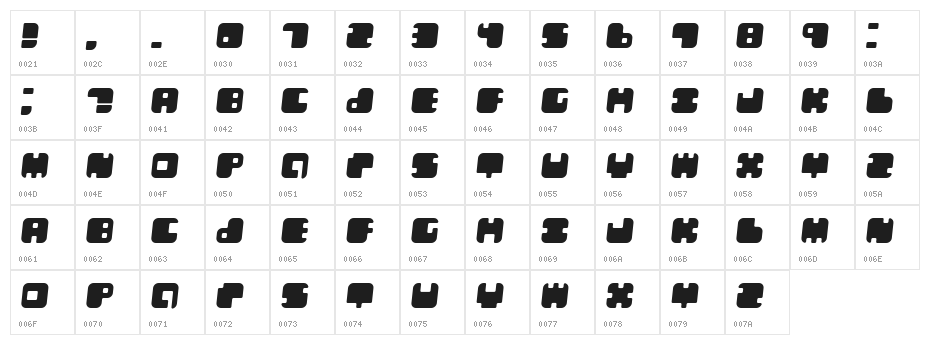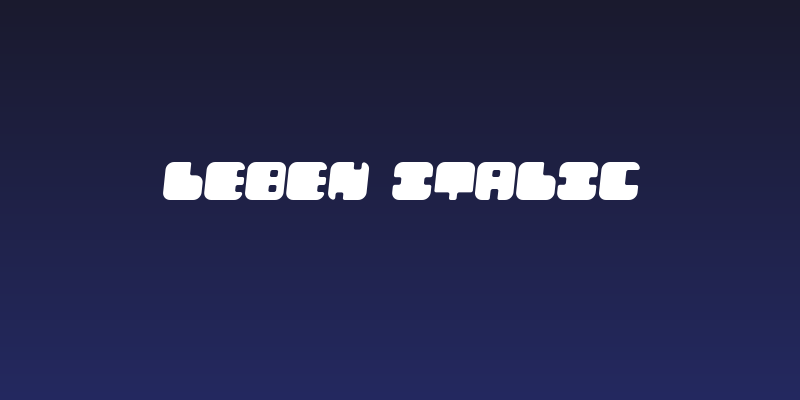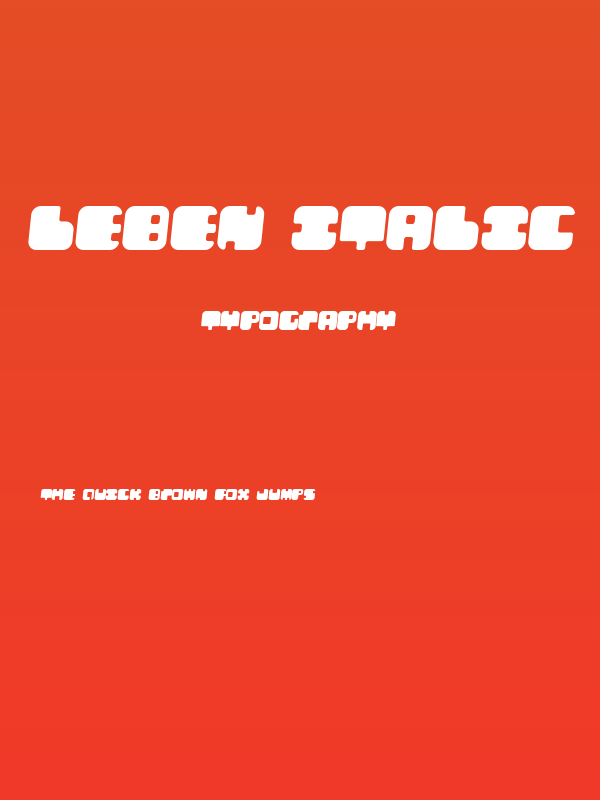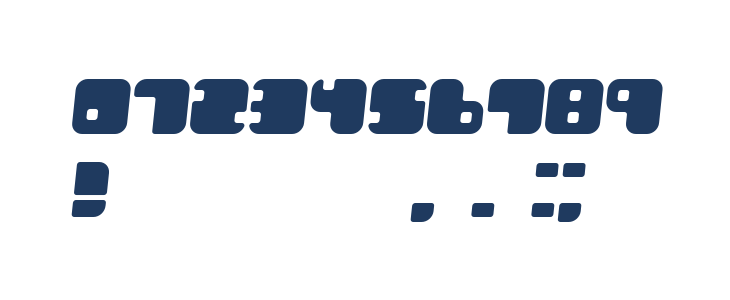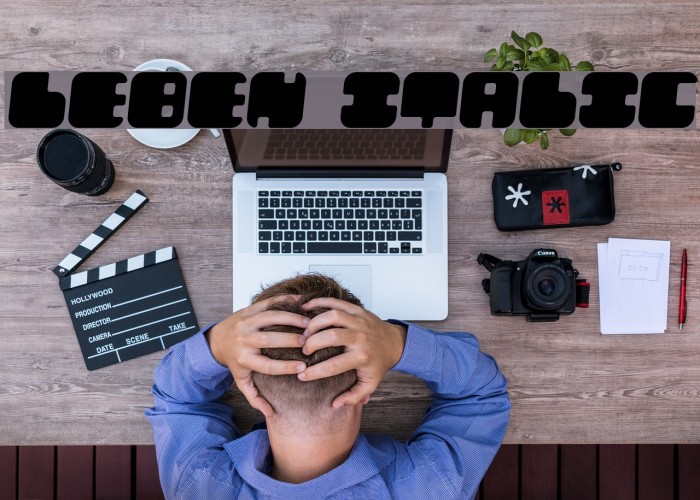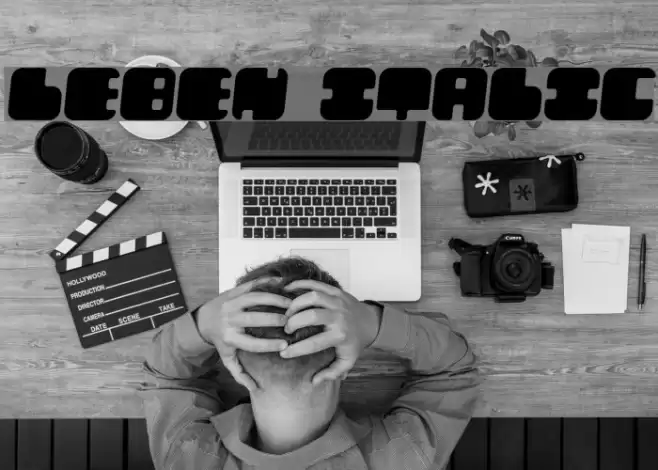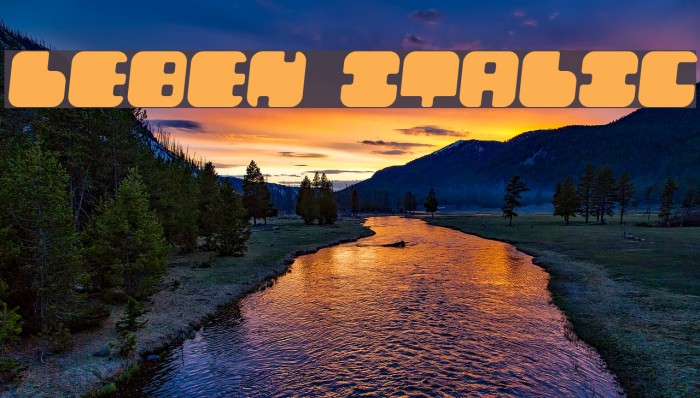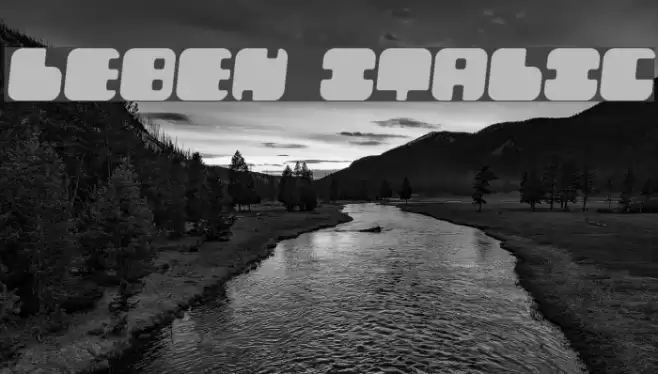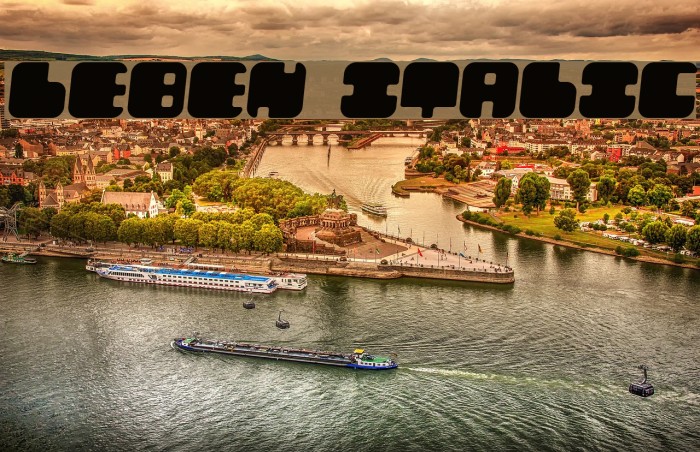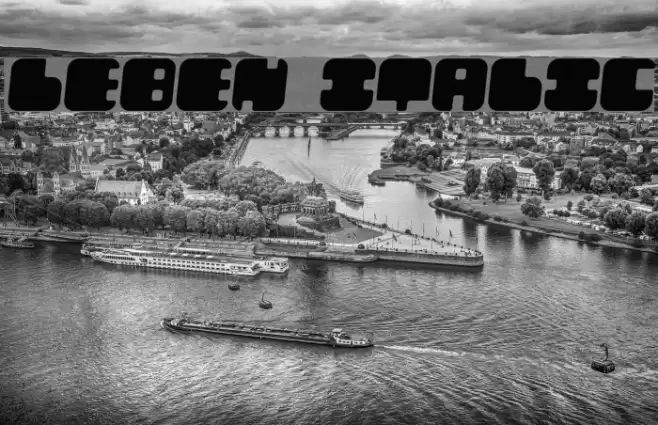
Leben Italic Font
This font features a bold, rounded style with a modern and playful aesthetic. The characters are uniformly thick, creating a strong visual impact. The rounded edges and consistent stroke width give it a friendly and approachable feel. The uppercase and lowercase letters maintain a cohesive design, with a slight slant that adds a dynamic quality. The numerals and special characters follow the same design principles, ensuring uniformity across all glyphs. This font is ideal for projects that require a bold and contemporary look, such as branding, posters, and digital media.
| Proposed Projects | Ideal for branding, posters, digital media, and any project needing a bold, contemporary look. |